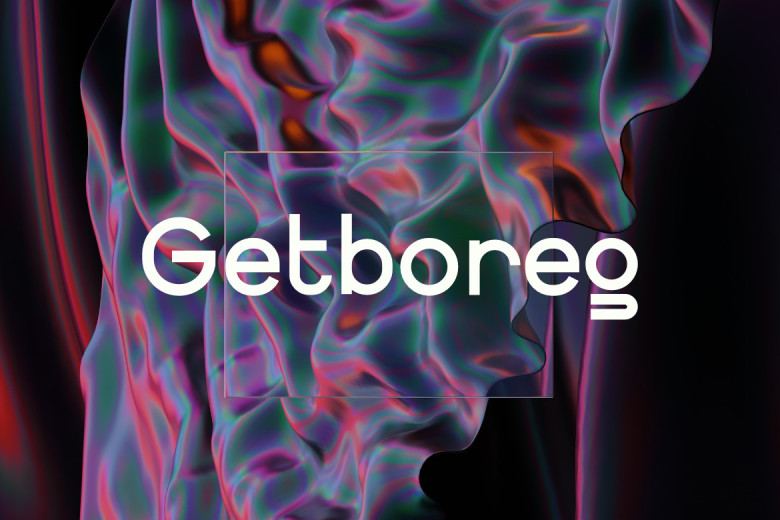
Getboreg Font
Getboreg is a modern and fashionable display font with clear lines and bold letters exuding a sense of coolness, innovation and strength. Its geometric shapes along with the sharp angles are perfect for fresh, contemporary designs in technology, fashion or advertising.
Getboreg Display Font